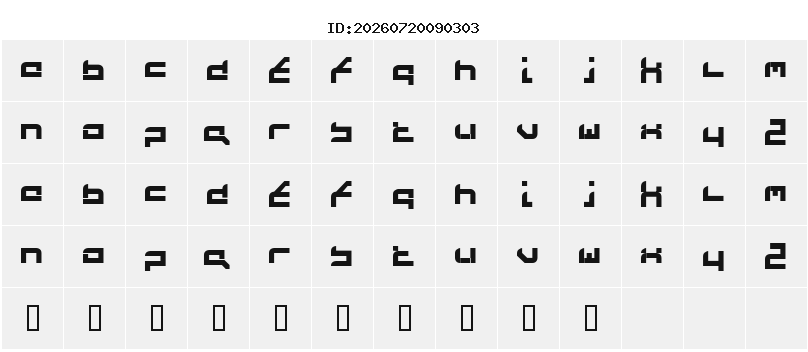
FutureFlash Preview
• Font Name: FutureFlash
• Full Font Name: FutureFlash
About FutureFlash.ttf
FutureFlash.ttf is a modern, elegant sans-serif font designed for ultimate readability and visual harmony. Perfect for branding, headlines, web design, and print materials.